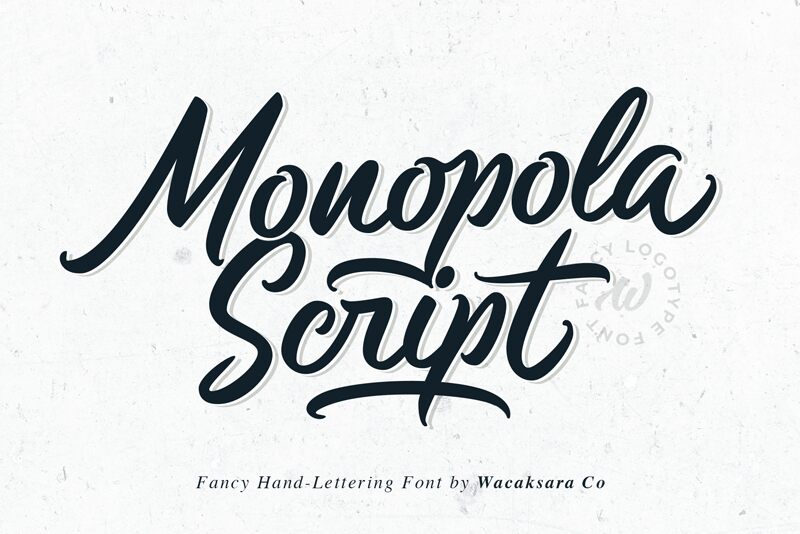
Monopola Script is a captivating calligraphic font that exudes elegance and sophistication. Crafted by Wacaksara Co., this script typeface boasts fluid, handwritten strokes that seamlessly flow together, creating a sense of effortless grace. The delicate flourishes and natural variations lend an organic, artisanal quality, making it ideal for branding, editorial design, and wedding stationary. Monopola Script's versatility shines through, seamlessly transitioning between formal and casual contexts.
Its distinctive character and timeless appeal make it a standout choice for designers seeking to elevate their projects with a touch of refined sophistication.
Monopola Script